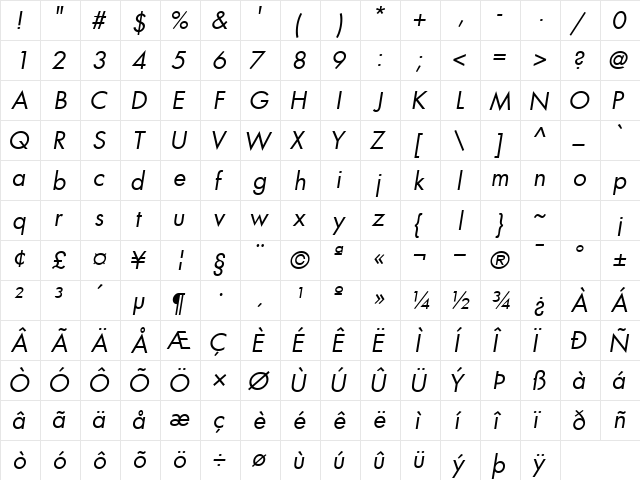
KudosBookSSK Italic Font Preview
KudosBookSSK Italic
Design Context for KudosBookSSK Typeface
KudosBookSSK is a composed and adaptable typeface that performs quietly and consistently across a wide range of design contexts. Its italic angle brings a sense of urgency and motion to the letterforms.
Pro Tip: Try KudosBookSSK for annotation and caption copy alongside an upright companion — the contrast in angle creates a dynamic but ordered typographic system.